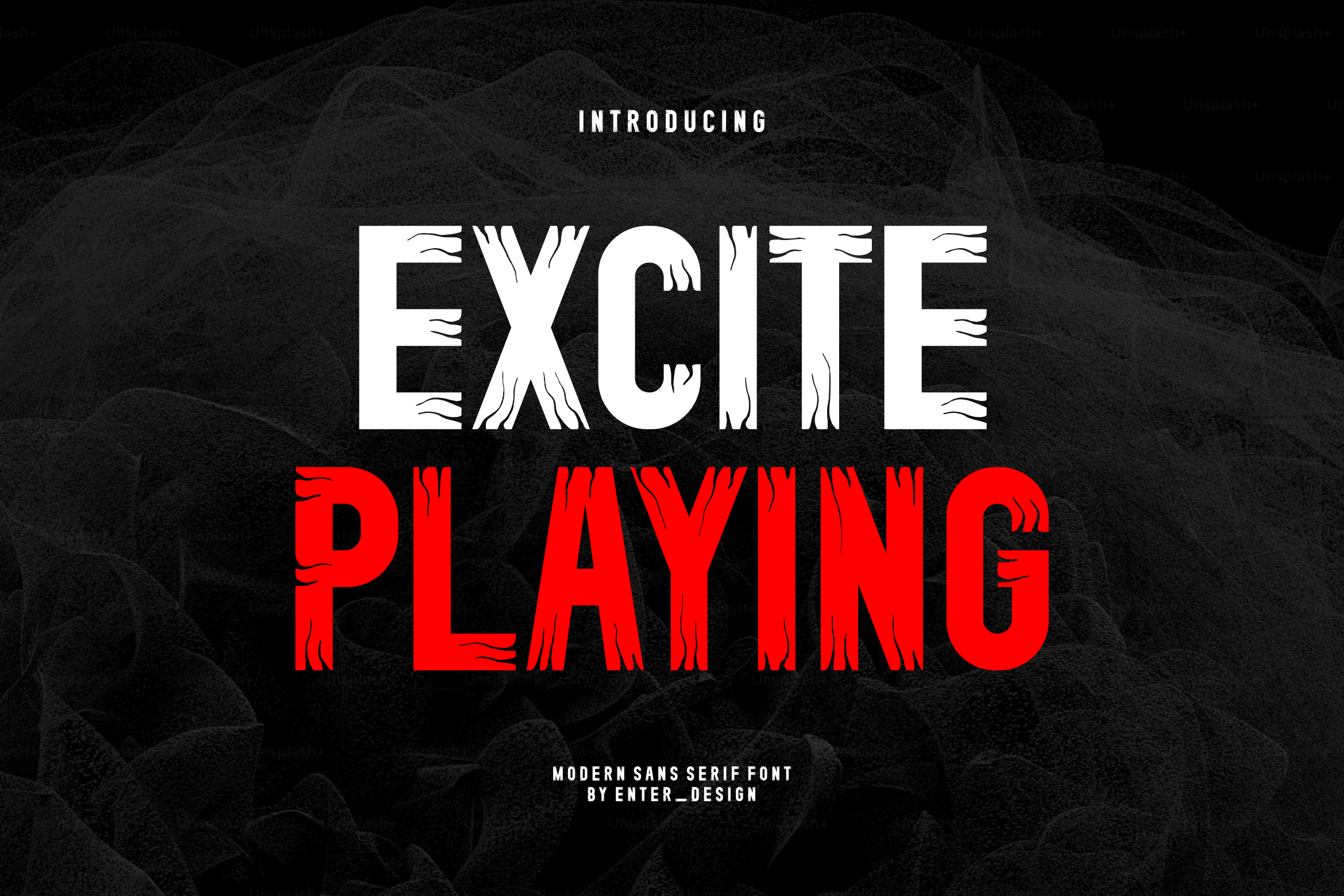
Excite Playing Font
Introducing our new product Excite Playing Font - Modern Font
Excite Playing Font - Modern Font is a bold and authentic display font. The font is suitable for any branding project like logo, esport, and many more. outstanding in a wide range of contexts.